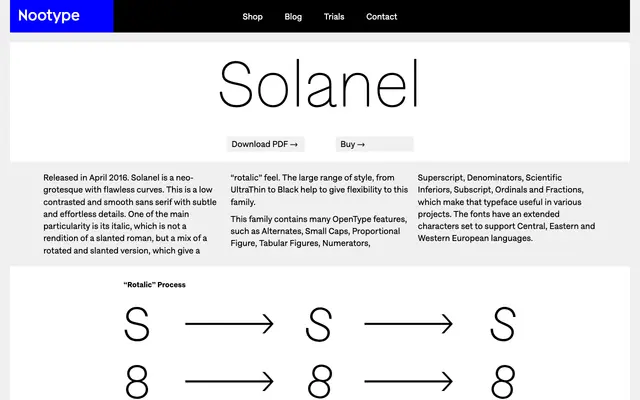
Solanel
Nootype · 2016
A low-contrast neo-grotesque released in 2016, notable for its 'rotalic' italic that combines rotation and slant rather than simply obliquing the roman.
Running from UltraThin to Black across both upright and italic cuts, the family also extends into a full Condensed sub-family. The italic is a considered departure from convention: rather than a slanted roman, it blends rotation and slant to produce a livelier, more calligraphic feel. An extensive OpenType feature set includes small caps, multiple figure styles, fractions and ordinals, alongside broad coverage of Central, Eastern and Western European Latin characters.
Described explicitly as a neo-grotesque, with low contrast, smooth curves and a wide weight range from UltraThin to Black, placing it firmly in the neo-grotesque tradition.